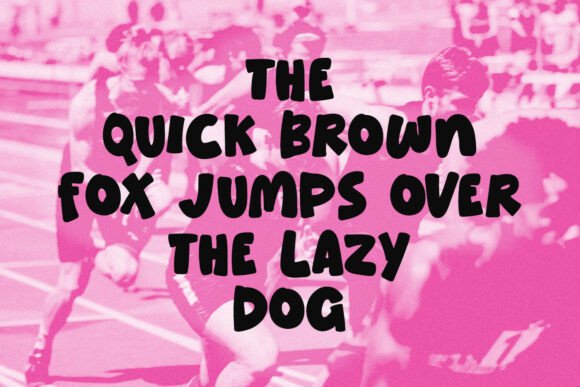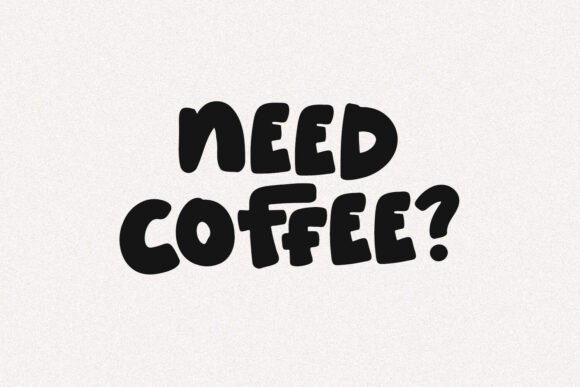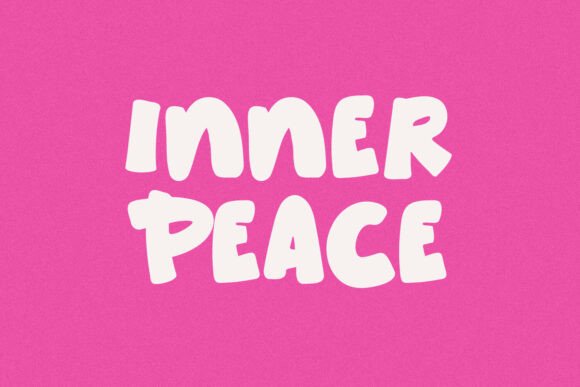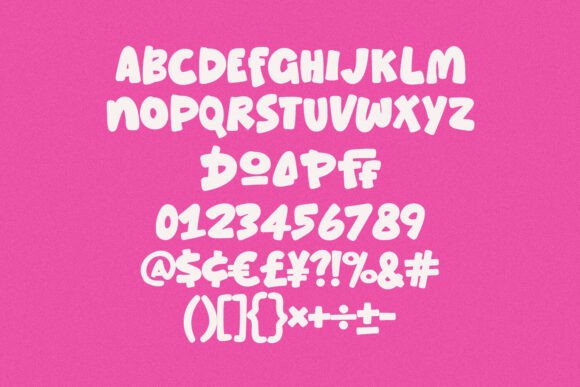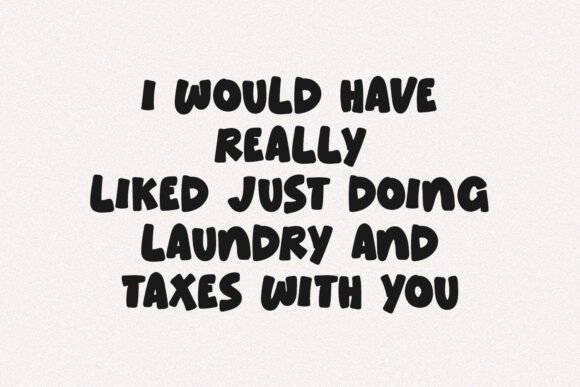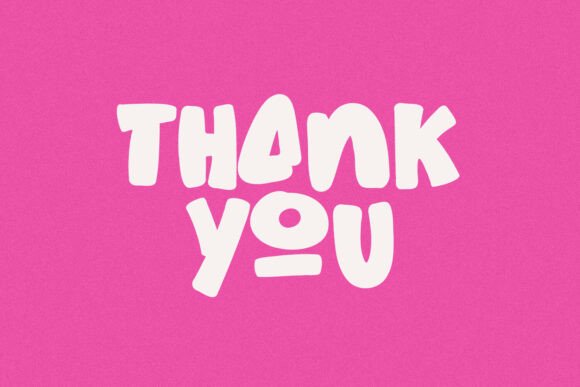
Introducing Chiffo Drios Font: A Playful and Bold Display Font
Are you looking for a font that can add a touch of fun and creativity to your design projects? Look no further than Chiffo Drios, a playful and bold display font that is sure to make your text stand out. With its chunky letterforms, smooth rounded terminals, and soft, inflated appearance, Chiffo Drios is the perfect choice for designers and crafters who want to add some personality to their work.
Key Features of Chiffo Drios Font
Chiffo Drios is a unique font that offers a range of features that make it ideal for a variety of design projects. Some of its key features include:
- Chunky letterforms: Chiffo Drios features thick, chunky letterforms that give text a bold and playful appearance.
- Smooth rounded terminals: The font’s smooth rounded terminals add a touch of softness and elegance to the letterforms.
- Consistent thickness: Chiffo Drios has a consistent thickness throughout, which makes it highly readable even in vibrant layouts.
- Wide spacing: The font’s wide spacing ensures that text is easy to read and understand, even at smaller sizes.
- Handcrafted look: Each glyph in Chiffo Drios features a handcrafted look with geometric charm, making it perfect for designers who want to add a personal touch to their work.
Uses for Chiffo Drios Font
Chiffo Drios is a versatile font that can be used for a wide range of design projects, including:
- Children’s books: The font’s playful and fun appearance makes it perfect for children’s books, where it can help to engage young readers.
- Posters: Chiffo Drios is ideal for posters, where its bold and eye-catching appearance can help to grab attention.
- Cartoons: The font’s geometric charm and playful appearance make it a great choice for cartoons and animated designs.
- Playful brand identities: Chiffo Drios can help to create a fun and playful brand identity for businesses that want to appeal to a younger audience.
Benefits of Using Chiffo Drios Font
There are many benefits to using Chiffo Drios font in your design projects, including:
- Standout visibility: The font’s bold and playful appearance ensures that text stands out and grabs attention.
- Joyful visual rhythm: Chiffo Drios has a joyful visual rhythm that can help to create a positive and uplifting atmosphere in your designs.
- High readability: The font’s consistent thickness and wide spacing make it highly readable, even in vibrant layouts.
- Unique personality: Chiffo Drios has a unique personality that can help to add a touch of fun and creativity to your designs.
Chiffo Drios is a playful and bold display font that is perfect for designers and crafters who want to add some fun and creativity to their work. With its chunky letterforms, smooth rounded terminals, and soft, inflated appearance, Chiffo Drios is sure to make your text stand out. Its versatility and range of features make it ideal for a wide range of design projects, from children’s books to playful brand identities. So why not give Chiffo Drios a try and see how it can help to bring your designs to life?